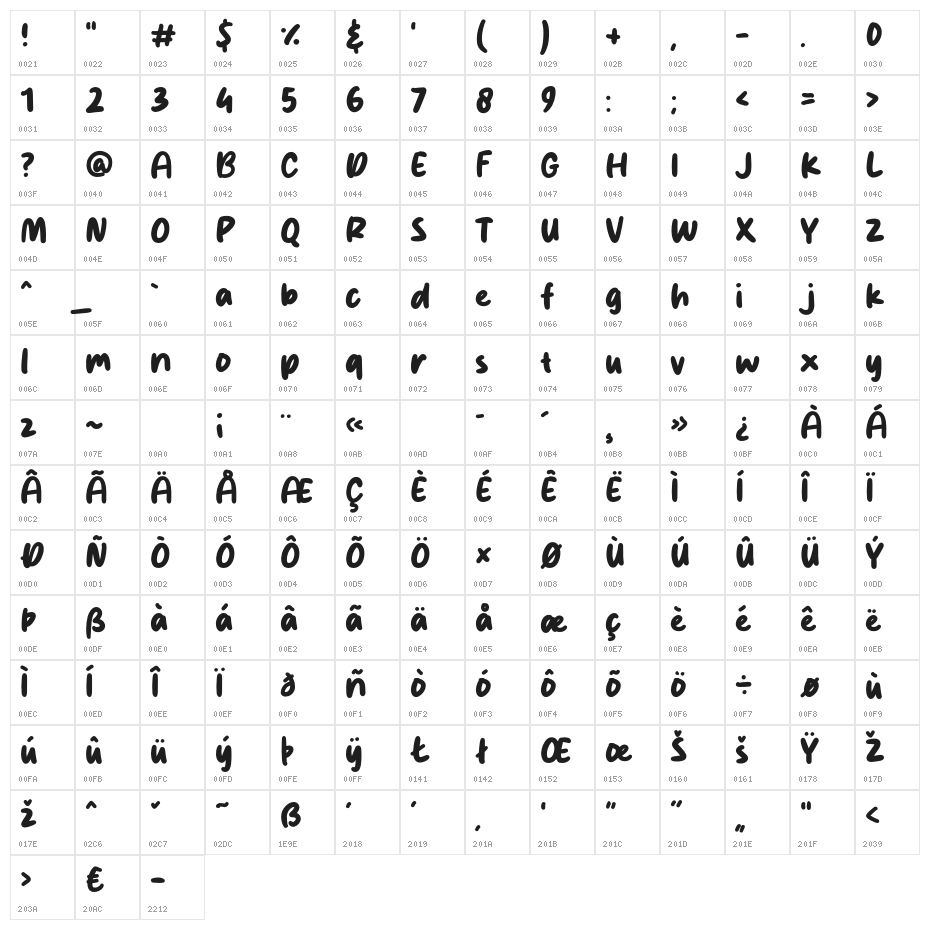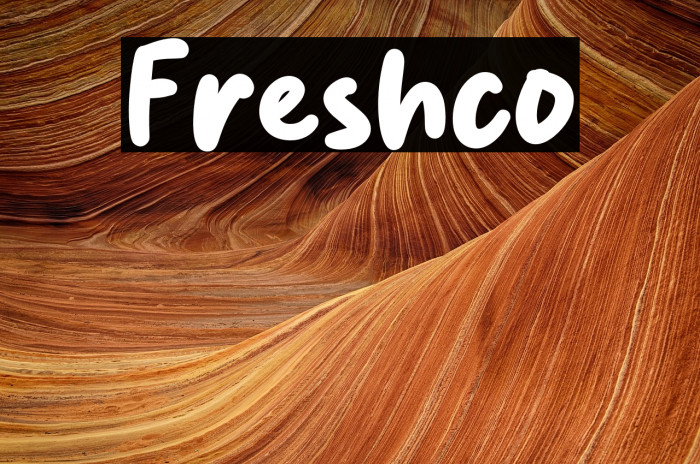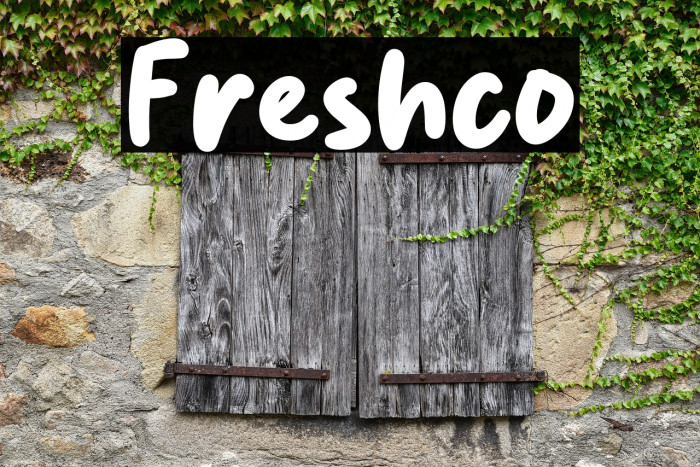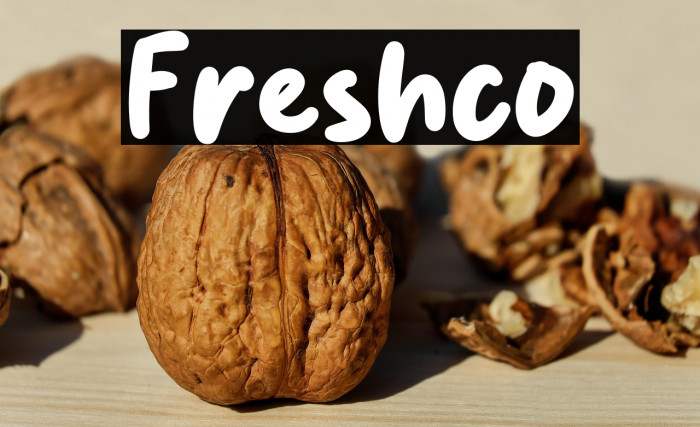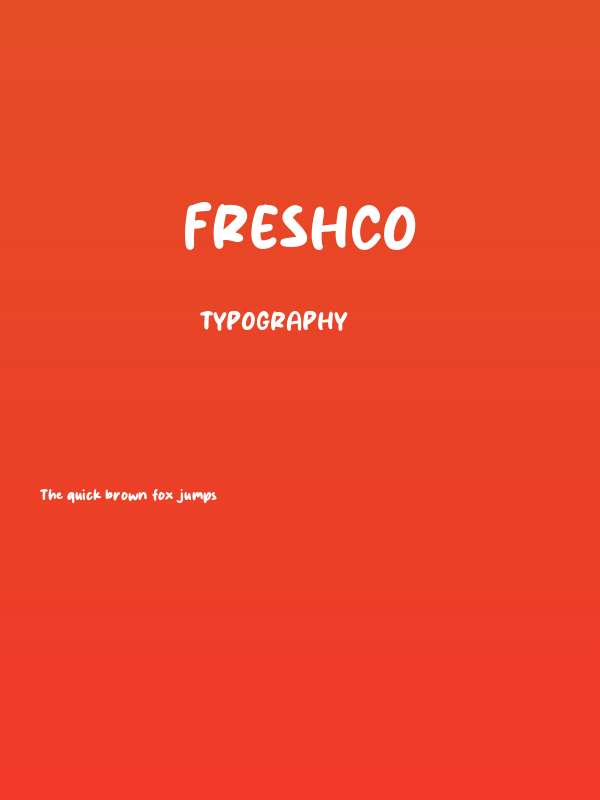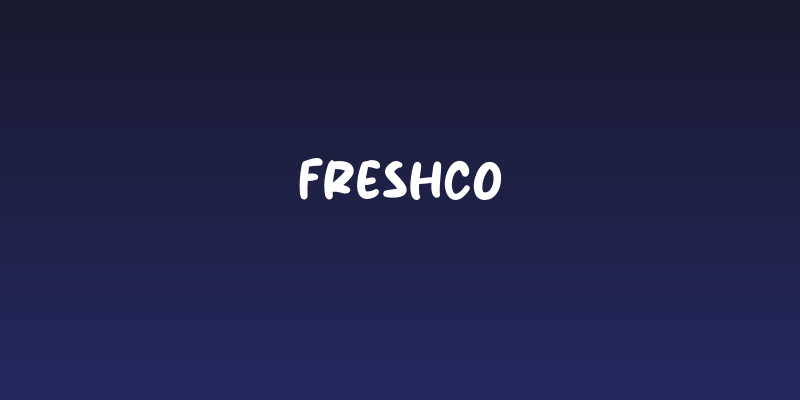
Freshco Font
Freshco Description
This font features a playful and bold handwritten style, characterized by its thick strokes and rounded edges. The letters are slightly slanted, giving a casual and friendly appearance. The uppercase and lowercase letters maintain a consistent weight, contributing to a cohesive look. The numerals and special characters are designed to match the overall style, ensuring uniformity across different uses. The font's informal and approachable aesthetic makes it suitable for creative and fun projects.
| Overall Style | Playful |
| Use Case | Logos, Headlines, Posters |
| Proposed Projects | Ideal for children's books, greeting cards, playful branding, and social media graphics. |